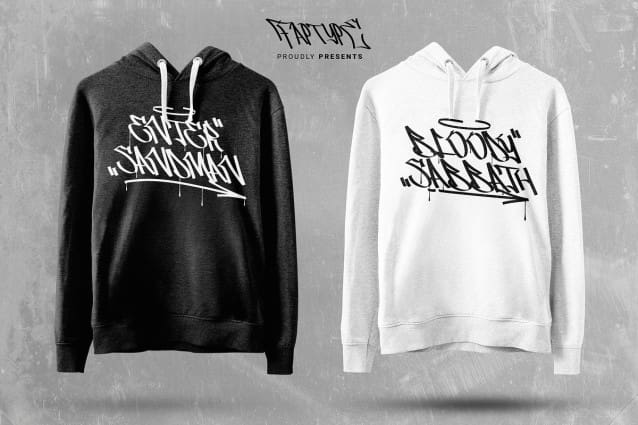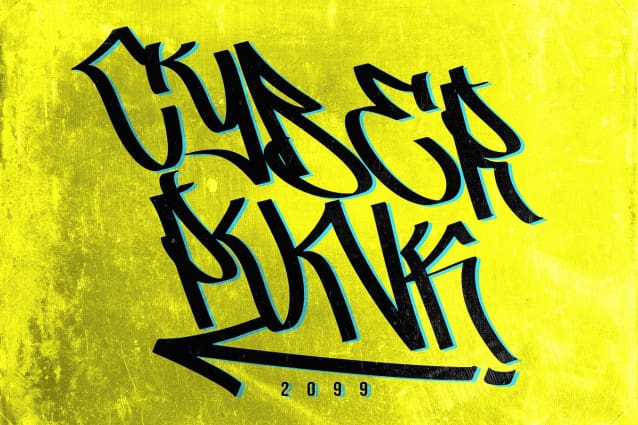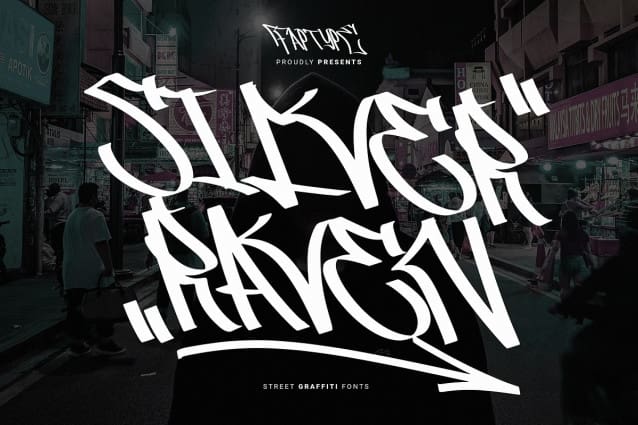
Silver Raven Font
Silver Raven Font! This font created and inspired from the street writing of New York, and generated by creative hands of graffiti addictions. It has an incredibly unique design that can be perfect for a range of creative branding and packaging projects. Take your designs to the next level with this stunning font!